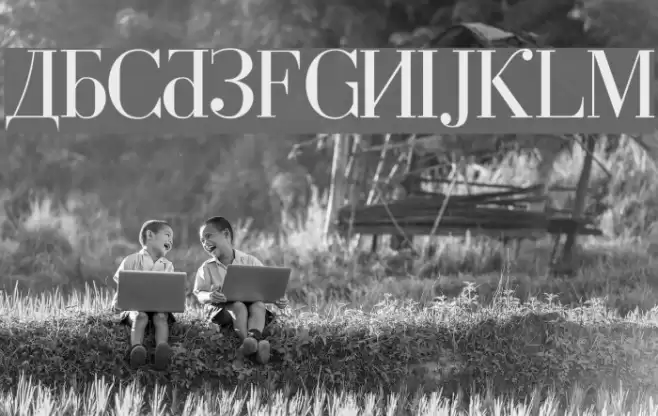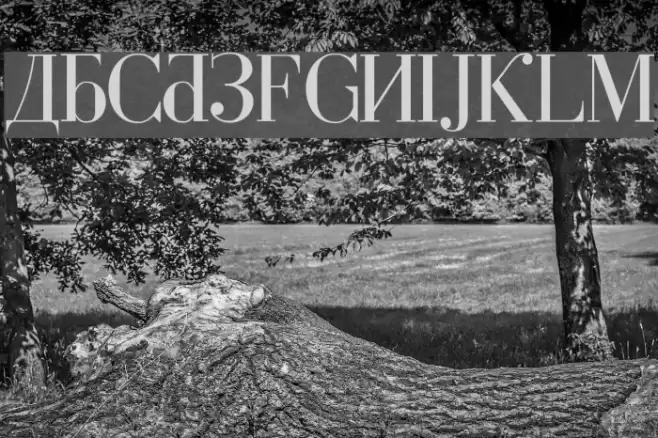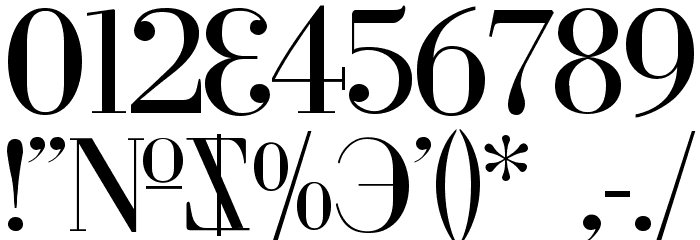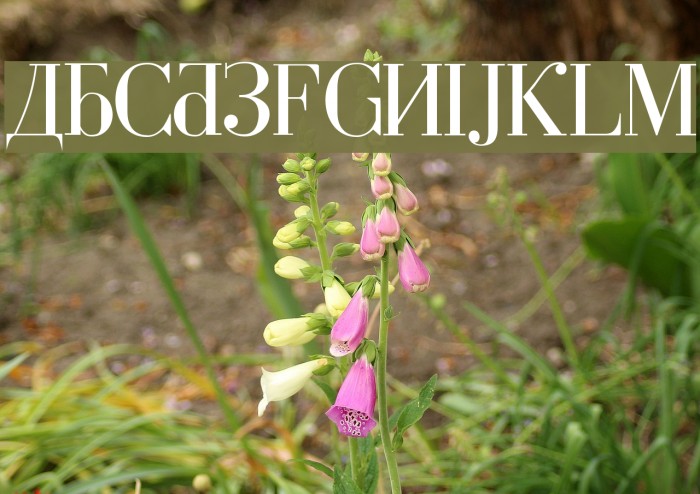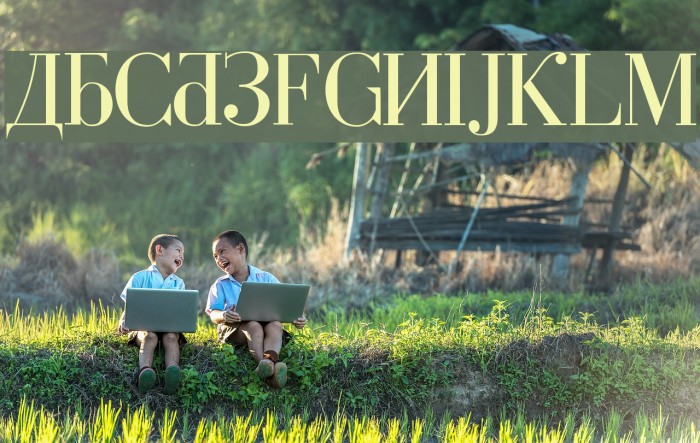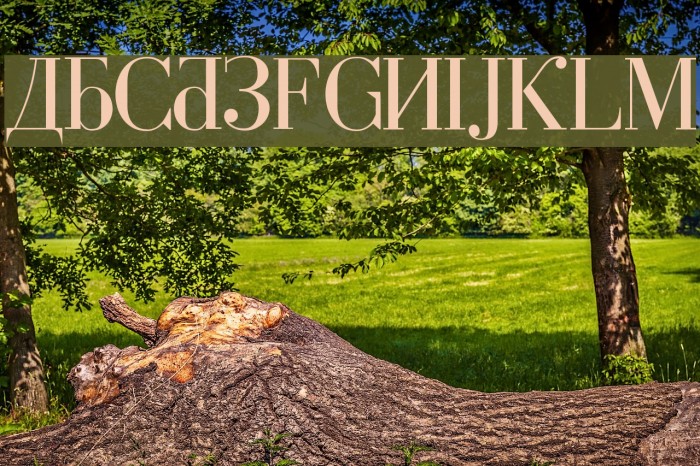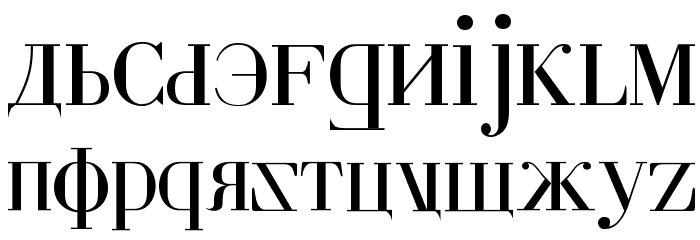
Cyberia Font
Cyberia Description
This font features a unique blend of modern and classic elements, characterized by its high contrast between thick and thin strokes. The serifs are sharp and pronounced, giving it a sophisticated and elegant appearance. The uppercase letters exhibit a strong presence with their bold and structured forms, while the lowercase letters maintain a more delicate and refined look. The numerals are distinct and easily readable, complementing the overall design. Special characters are creatively designed, adding a touch of flair to the font. Its versatility makes it suitable for a variety of applications, from formal invitations to branding projects.
A high-contrast serif font with sharp serifs and a blend of modern and classic styles from Formal fonts.
- Proposed Projects: Ideal for luxury branding, editorial design, formal invitations, and high-end packaging.
- Use Case: Headlines, Logos, Editorial design